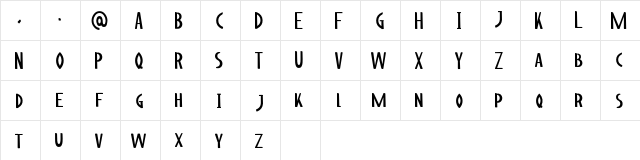
Catalina Regular
Design Context for Catalina Typeface
Catalina takes a measured approach to typography — its balanced proportions and neutral character make it a reliable workhorse for both digital and print work.
Pro Tip: Use Catalina in both headline and body roles to test its range before committing to a single application.